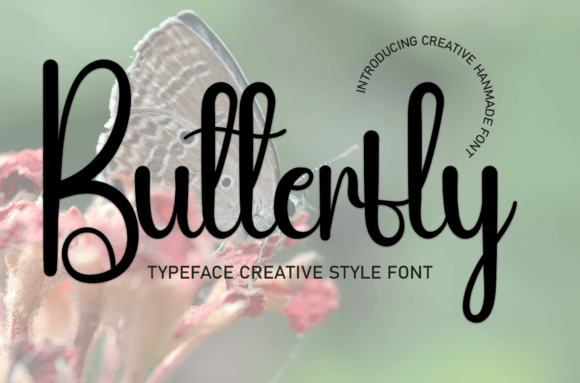
The Perfect Font for a Touch of Whimsy
Have you ever stared at a blank piece of paper, waiting for the perfect font to come to mind? For designers, this moment of blank-page paralysis can be a common affliction. But what if I told you that there’s a font that can help you break the creative block and add a dash of fun to your designs?
Enter the Butterfly Font, a sweet handwritten font that’s perfect for adding a touch of whimsy to your projects. Friendly and cute, this font is ideal for writing wedding invitations, cards, or any other design that needs a playful twist. With its versatility and charm, the Butterfly Font has become a valuable addition to many designers’ arsenals, allowing them to create unique and eye-catching designs with ease.
Key Features of Butterfly Font
- Unique Characteristics: Butterfly Font features a unique, hand-drawn design with intricate details and flourishes, giving it a whimsical and elegant feel.
Review: Butterfly Font
As a designer, I had the chance to work with the Butterfly Font, and I must say it’s a unique and intriguing addition to any design project. ✨ The font’s playful and whimsical feel is perfect for capturing the attention of your target audience, especially in children’s books, magazines, or social media graphics.
- ✨ Elegant and flowing lines that give the font a sense of movement and energy.
- ✨ The varied weights and styles allow for a lot of flexibility in terms of design possibilities.
- ✨ The font is highly legible, even at smaller sizes.
However, there are some limitations to consider. ⚠️ The font may not be suitable for formal or professional projects, as its playful nature can come across as unprofessional. Additionally, the font’s complexity can make it difficult to pair with other fonts, and the weight of the font can sometimes be too light or too bold.
Overall, I think the Butterfly Font is a great addition to any designer’s toolkit, especially for projects that require a touch of whimsy and playfulness. With a little creativity and experimentation, you can create some truly unique and eye-catching designs.
The Butterfly Font is ideal for creating whimsical and playful designs, making it perfect for:
Children’s book illustrations
Wedding invitations
Social media graphics
Party decorations
Remember to use the font in moderation to avoid overwhelming your design.